Retro and nostalgic branding continues to rise in 2025, and designers are increasingly searching for vintage packaging fonts that capture the warmth of analog aesthetics, old-school charm, and timeless identity.Here are the top 10 retro fonts from your own collection—ranked from #10 to #1—perfect for packaging, labels, logos, posters, and classic branding projects. For further reading on vintage styles, here’s an outbound reference.
10. Romane – Classic Calligraphy for Vintage Packaging Fonts
Romane delivers elegant, old-world calligraphy suitable for perfume boxes, tea tins, stationery labels, and premium vintage-themed packaging.
9. Lauragene – Nostalgic Handwriting for Retro Packaging
Lauragene adds a soft handwritten warmth that fits handmade products, craft goods, small-batch packaging, and nostalgic label designs.
8. Dream Floyd – Retro Brush Type for Vintage Labeling
Dream Floyd brings expressive 70s-inspired brush strokes, making it one of the most flexible vintage packaging fonts for apparel tags, beverage labels, posters, and retro merchandise.
7. Serenity – Layered Display Font for Retro Packaging
Serenity features blocky layered letters ideal for toy packaging, retro arcade visuals, and colorful nostalgic branding concepts.
6. Lettro – Playful Layered Script for Classic Food Packaging
Lettro is excellent for candy labels, soda branding, old-school snacks, and cheerful vintage packaging thanks to its vibrant layered script style.
5. Geofanny – Monoline Layered Retro Packaging Font
Geofanny blends monoline strokes with retro layers, making it great for diner-inspired products, dessert packaging, and classic mid-century label designs.
4. Briquete – Natural Handwriting for Vintage Handmade Packaging
Briquete offers a rustic handwritten personality perfect for bakery packaging, coffee labels, organic products, and nostalgic craft branding.
3. Meastro Pro Pack – Complete Retro Typeface for Packaging
Meastro Pro Pack includes both a bold retro script and a strong blocky display font, making it ideal for snack packaging, arcade-style branding, and any old-school commercial product line.
2. Korge – Bold Slab Serif for Heritage & Retro Packaging
Korge captures American heritage aesthetics with its bold slab serif structure. It works beautifully on coffee packaging, beer labels, men’s grooming products, and retro industrial branding.
1. Midway – The Best Retro Script for Vintage Packaging Fonts
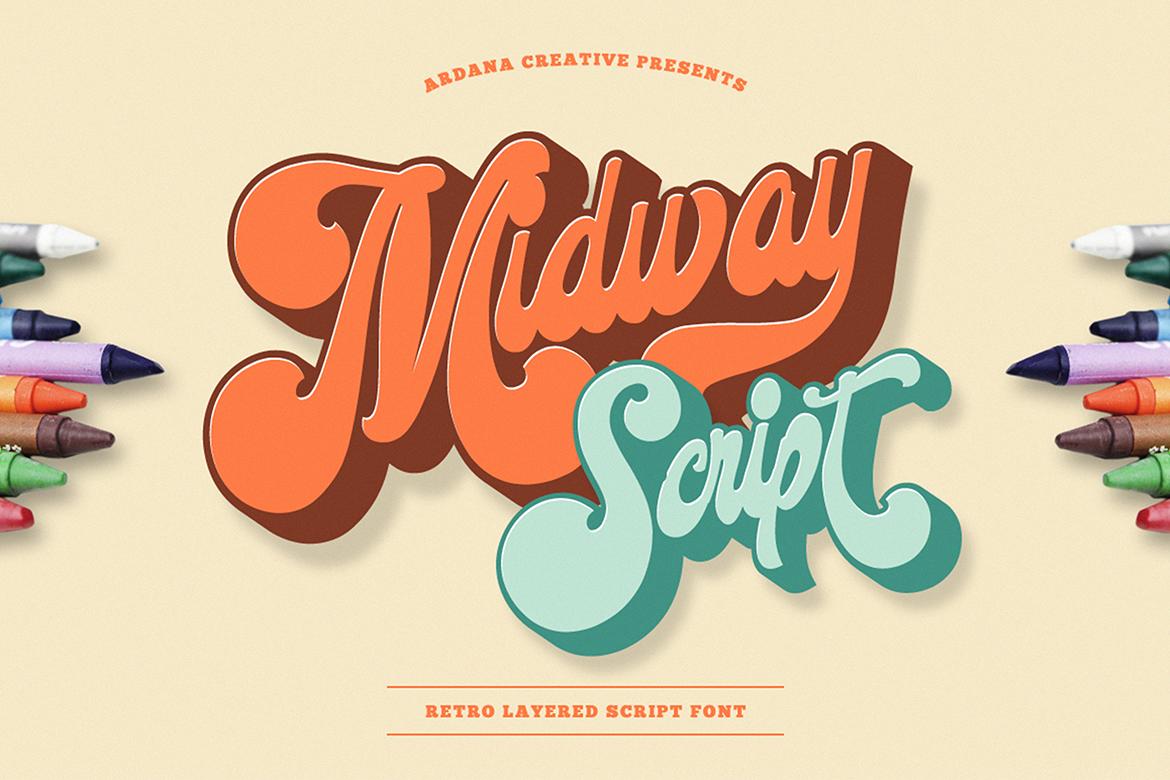
Perfect for diner-themed packaging, soda cans, snacks, barbershop sets, and nostalgic product labels, Midway remains the strongest premium choice for designers looking for authentic vintage packaging fonts.
Conclusion
Selecting the right vintage packaging fonts can instantly transform ordinary products into nostalgic, memorable, and emotionally resonant designs.
These ten retro typefaces offer diverse styles—from handwriting to layered scripts, slabs, and brushes—perfect for shaping a classic vintage brand identity.